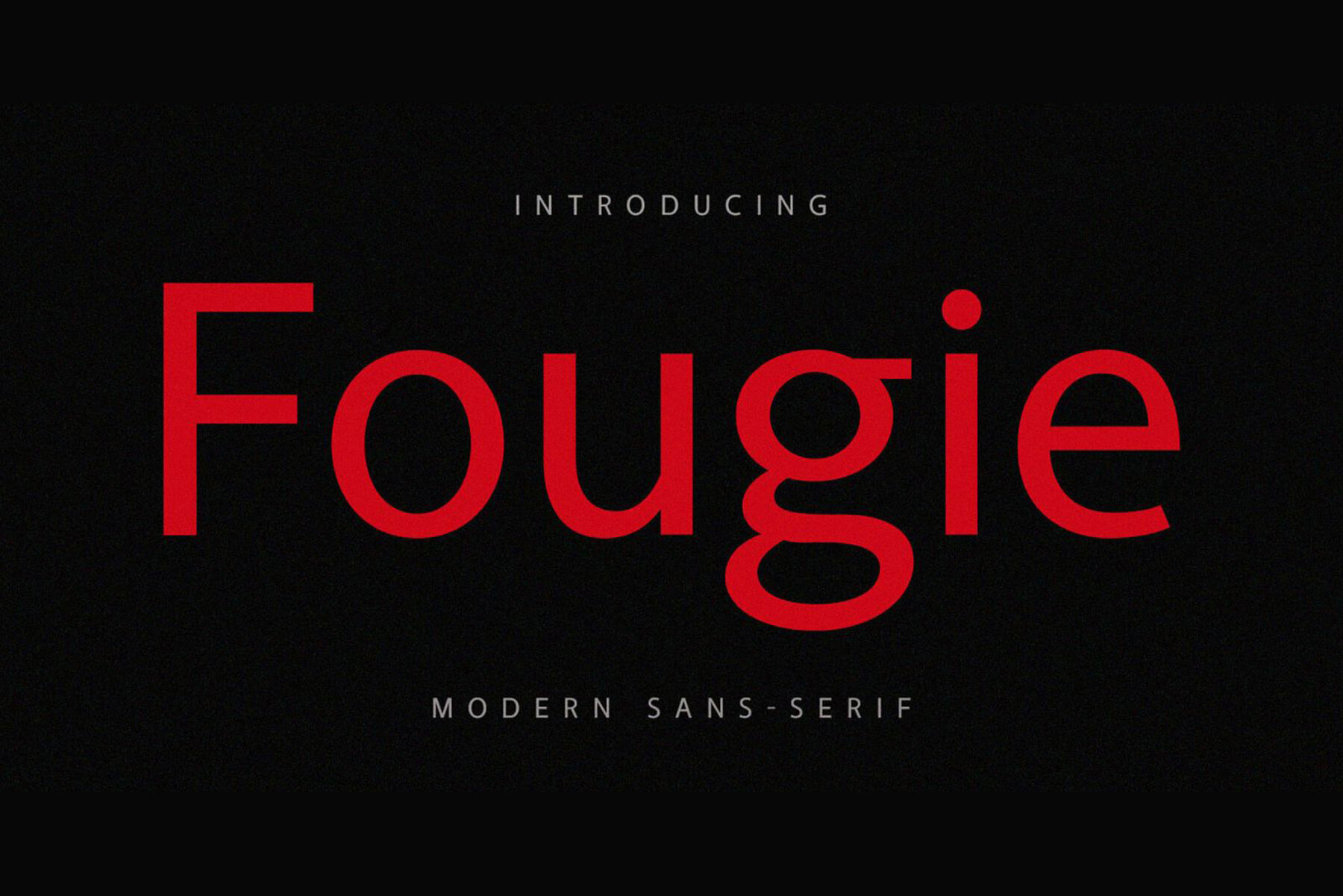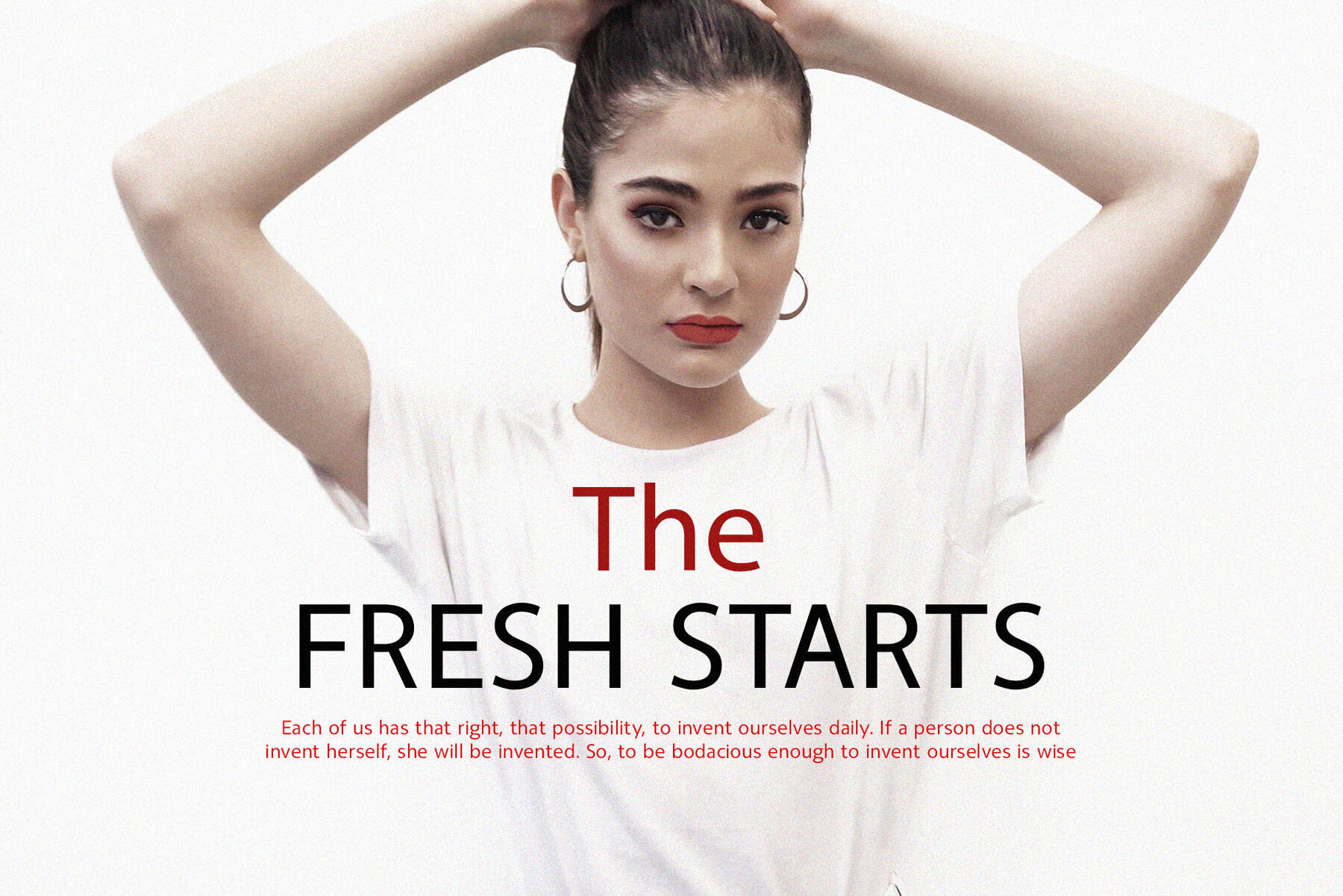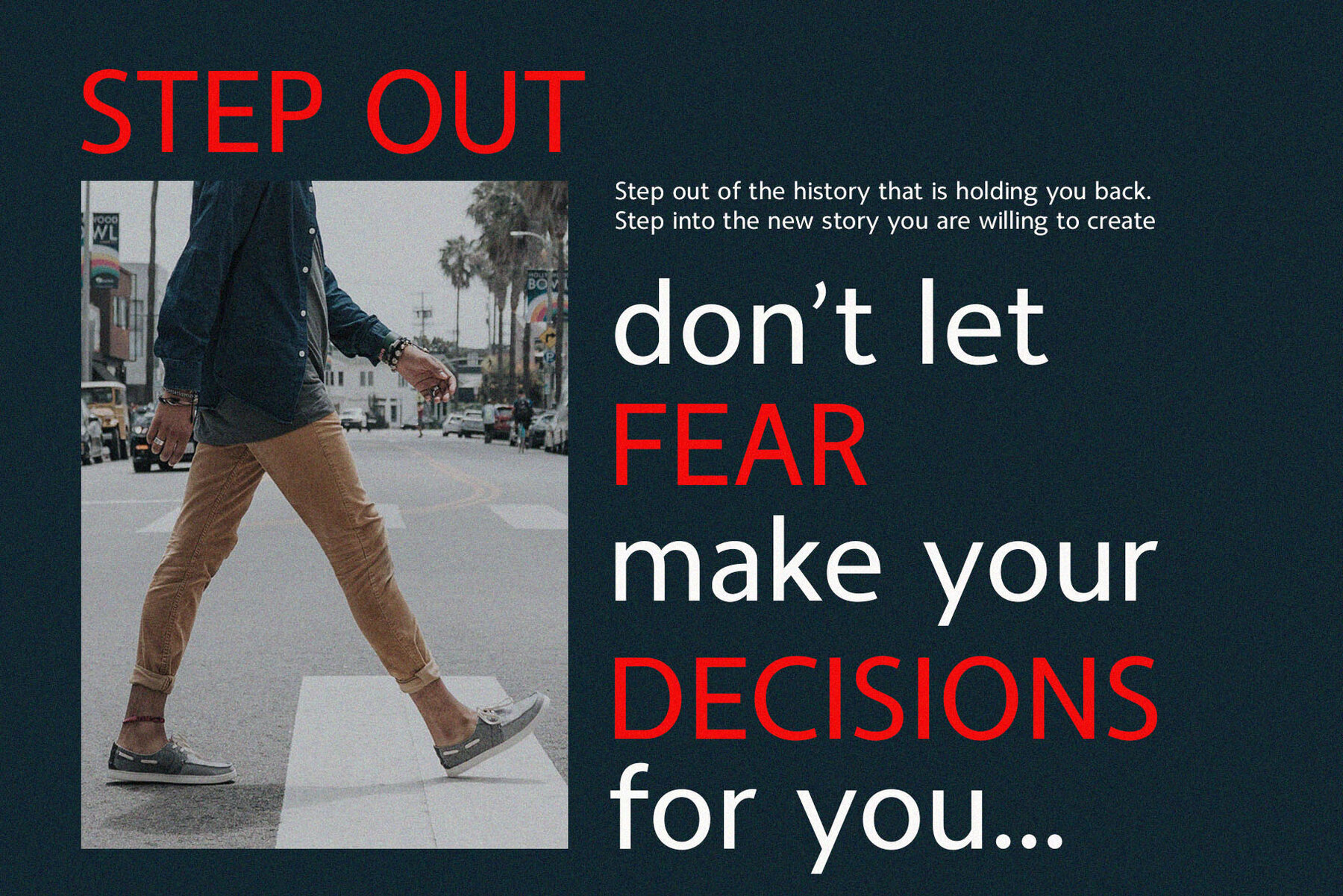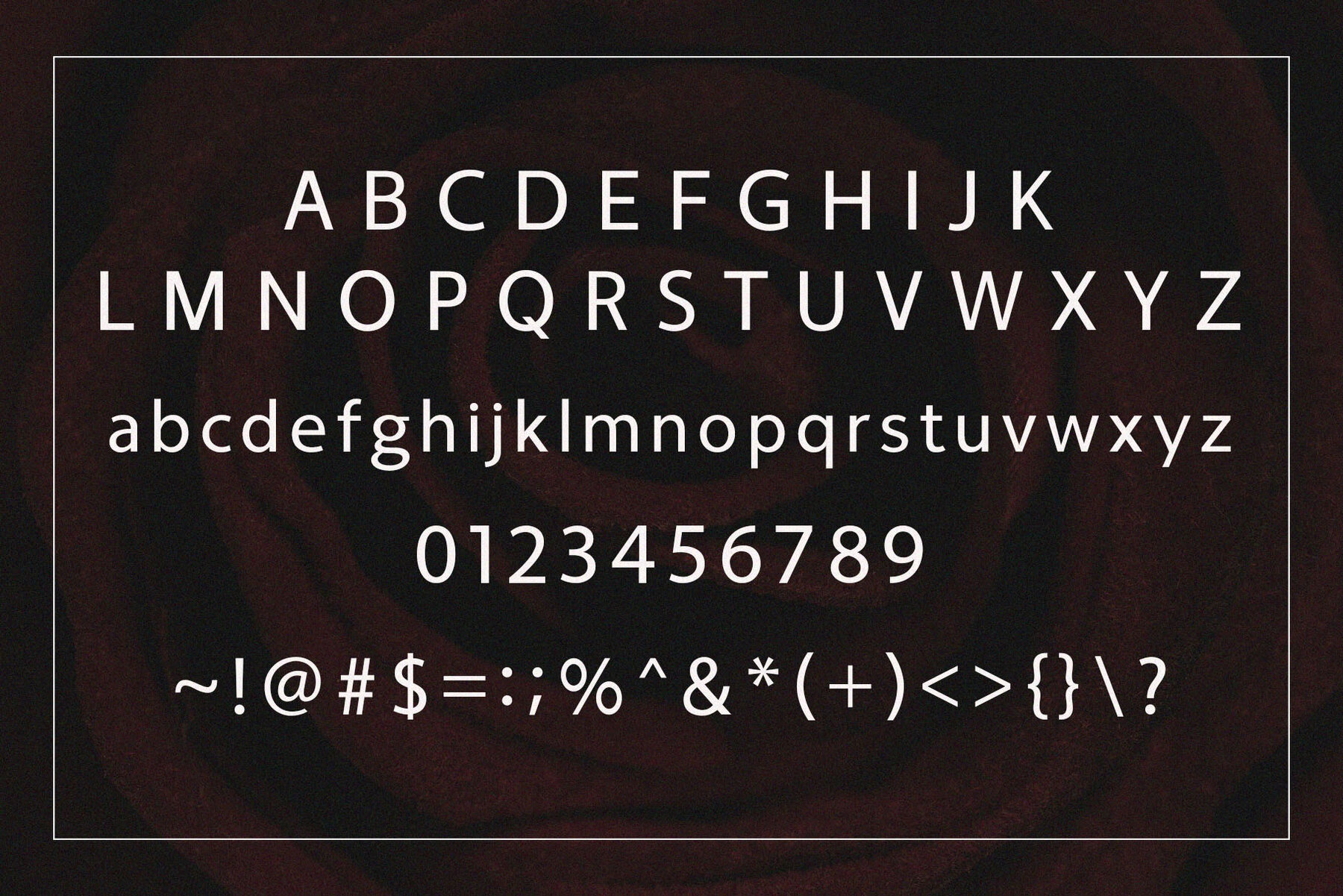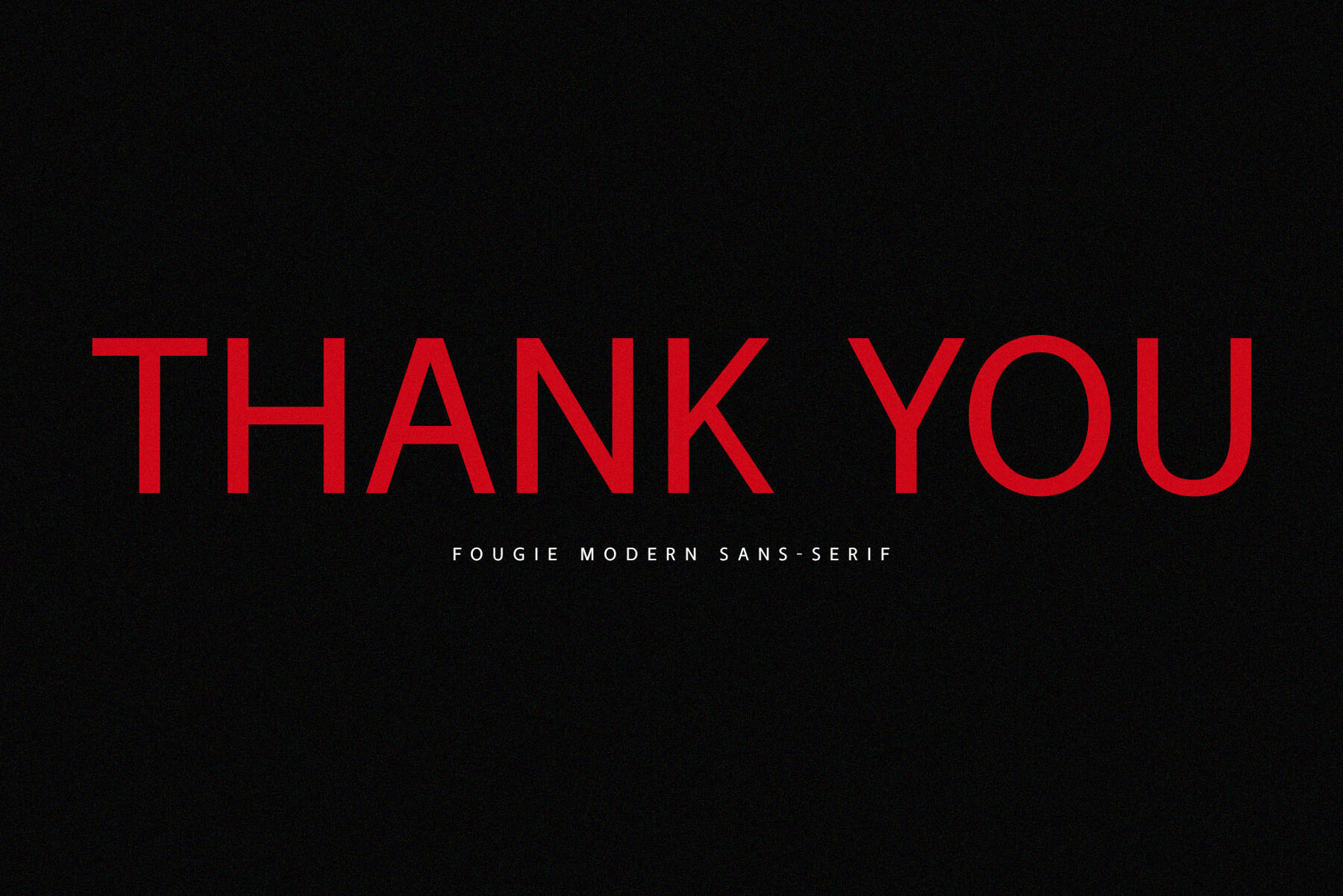
Fougie Font
Fougie Regular
Fougie is a sophisticated and contemporary sans-serif font, perfect for enhancing various creative projects such as websites, logos, magazines, and social media posts. Its elegant design makes it an ideal choice for those seeking a touch of refinement in their work, ensuring your designs exude timeless appeal.Fougie: A Classy and Modern Sans-Serif Font